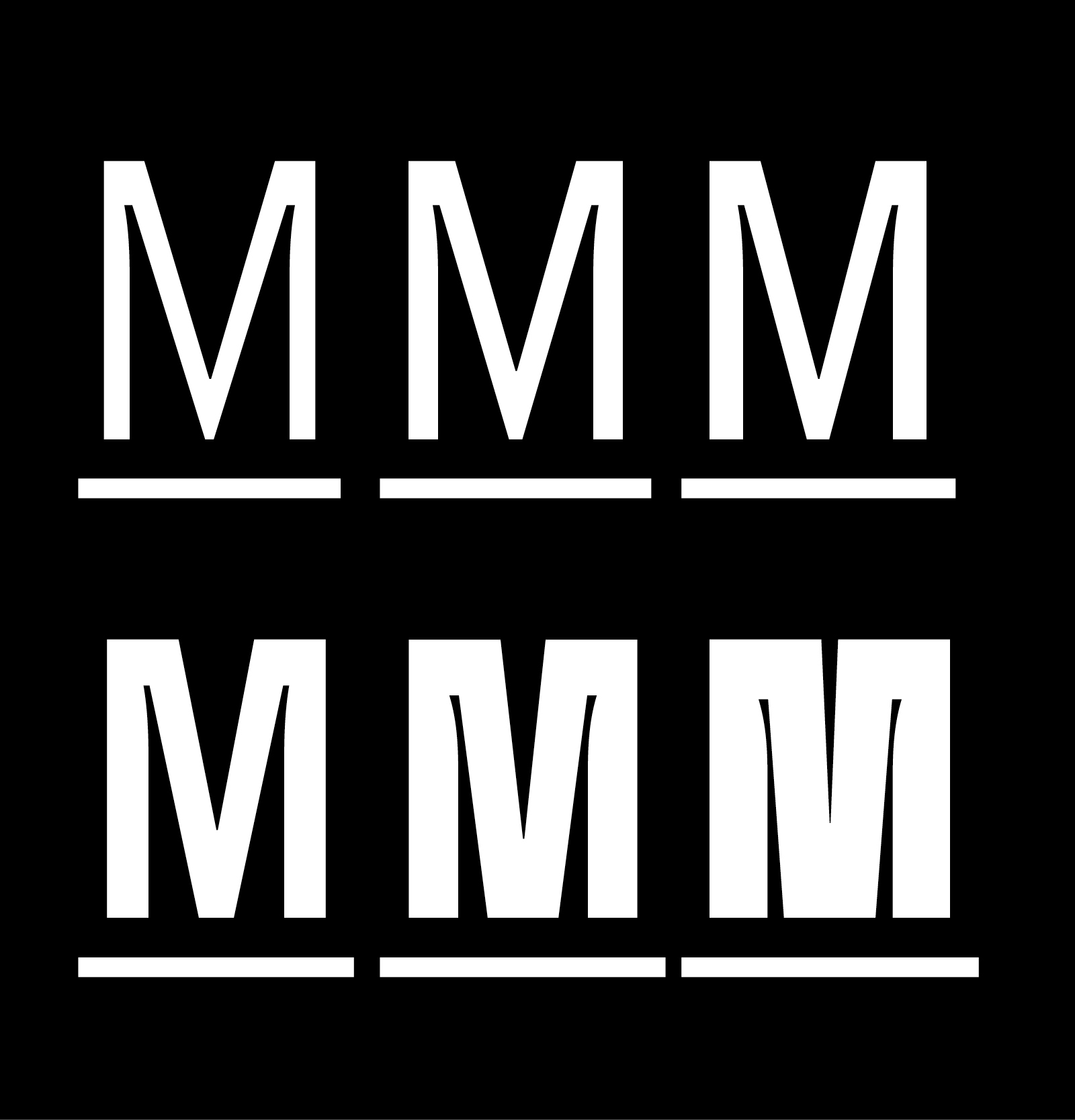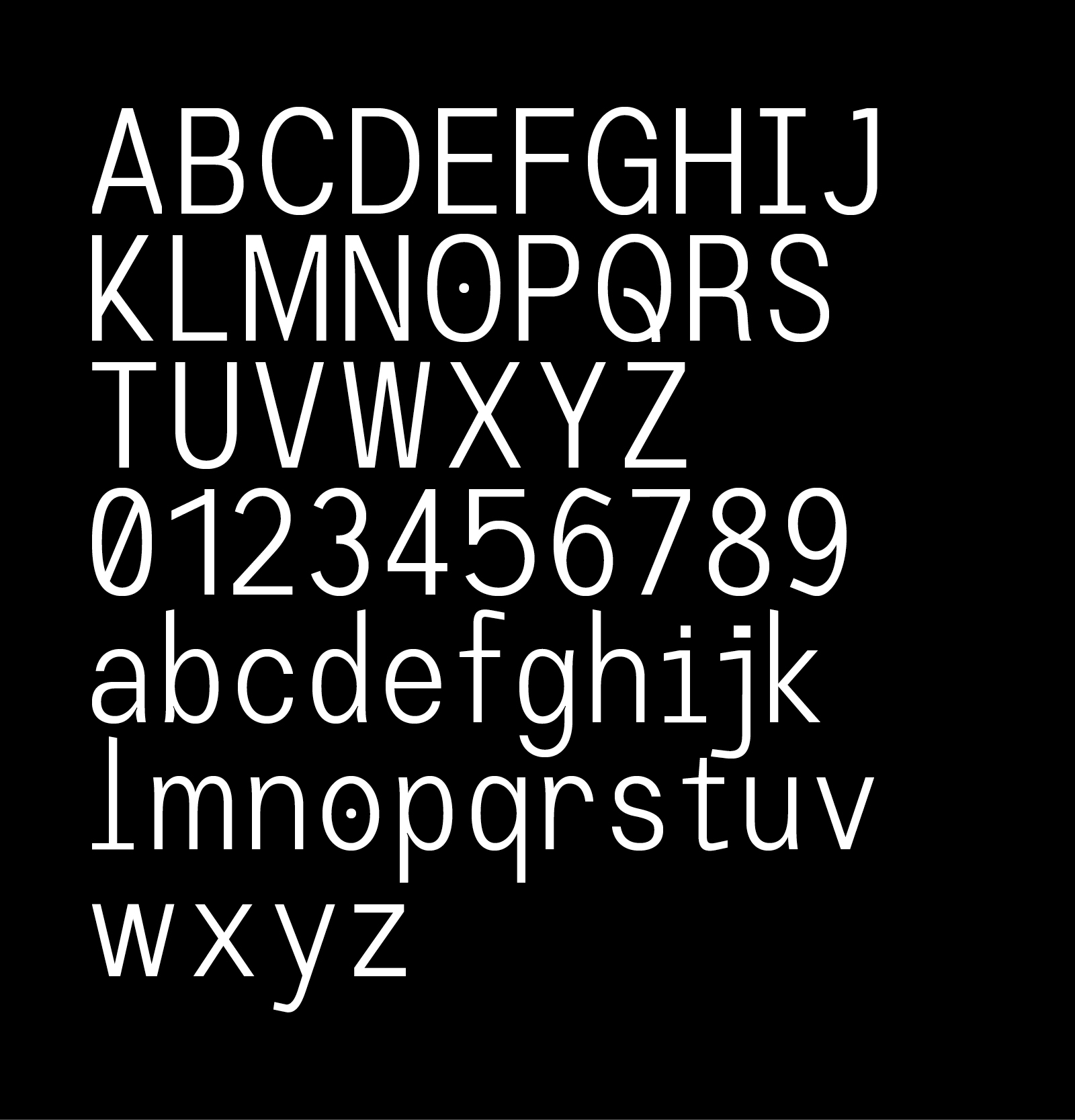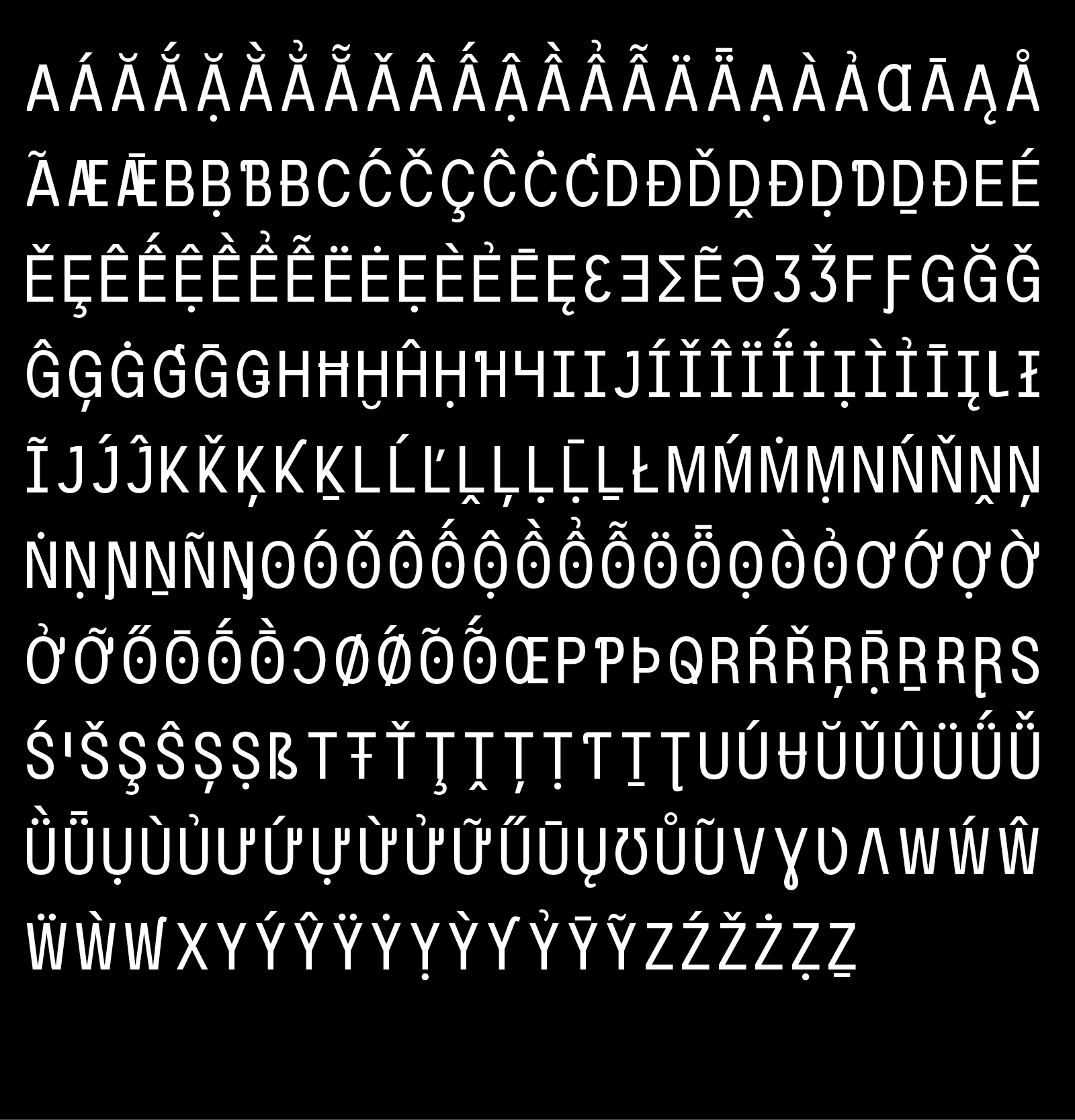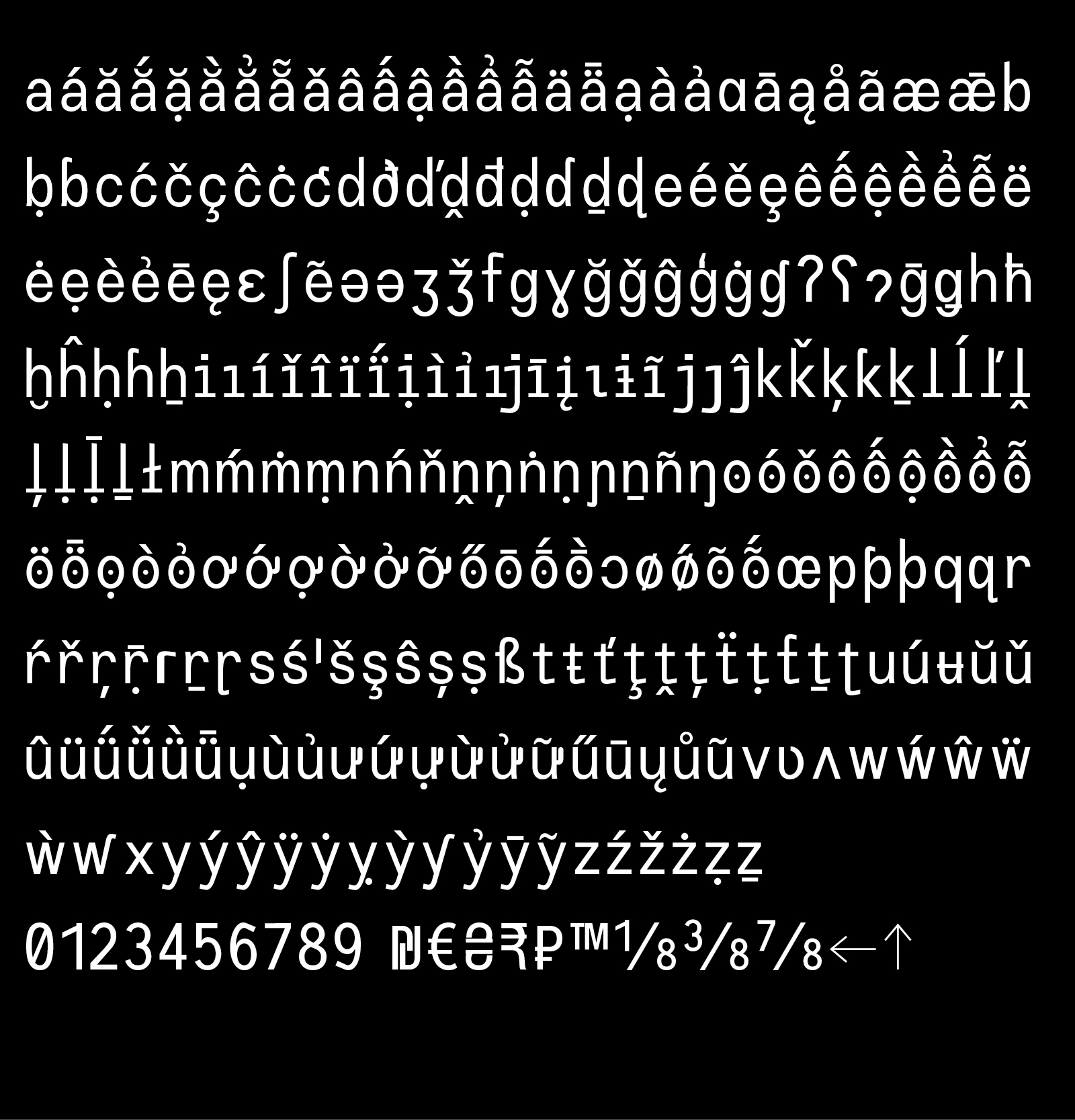
Aprex Mono, an industrial rendition of the Aprex Sans typeface featuring monospacing and comprehensive multilingual support. Drawing inspiration from the foundational sans-serif glyphs structure, this font is meticulously crafted to deliver a harmonious and optimized clean typeface. Its versatility shines through, making it suitable for both display and body text, and an ideal choice for elevating the style quotient of your creative projects and layouts. Unleash the potential of Aprex Mono for a seamless blend of aesthetics and functionality.
221 Latin languages
720 Glyphs